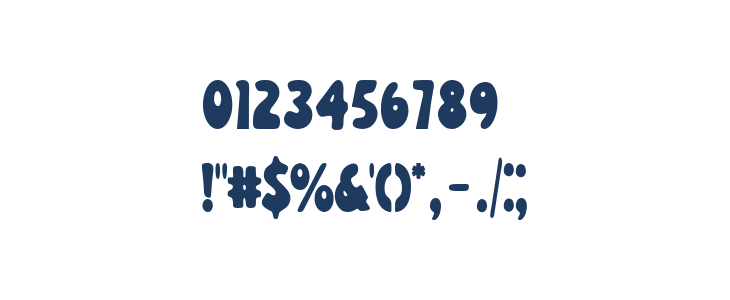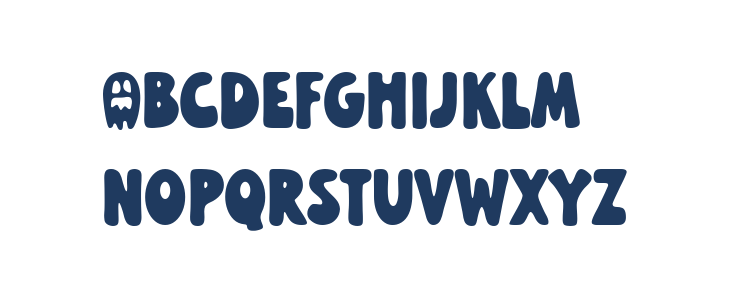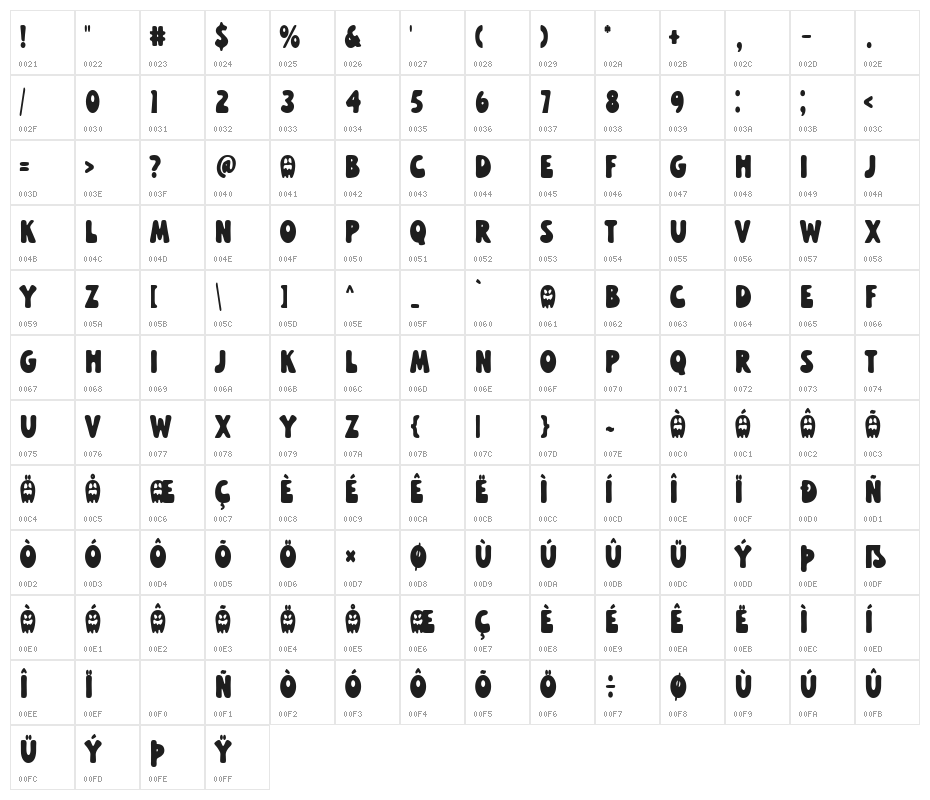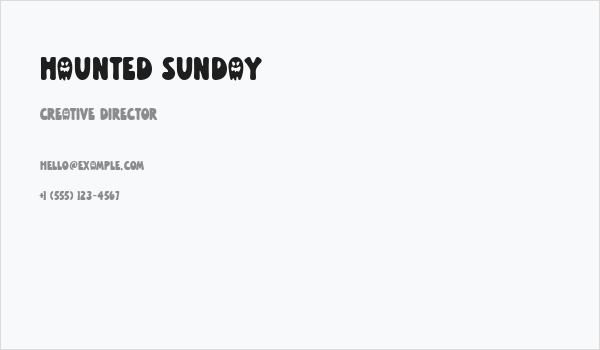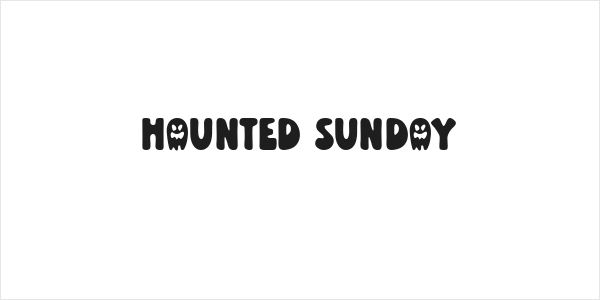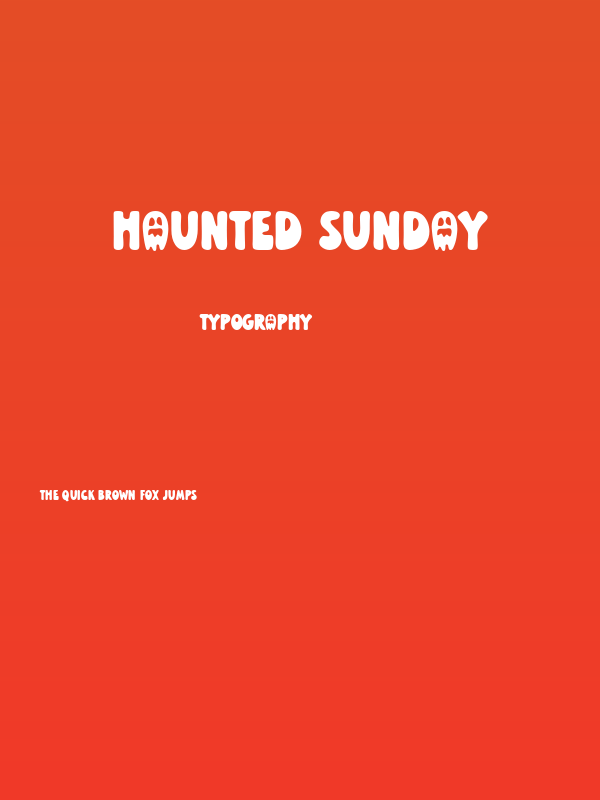
Haunted Sunday Font
A playful, bold display typeface with rounded, irregular edges and a whimsical, spooky theme. The characters are thick and bubbly, with some glyphs featuring ghostly or Halloween-inspired elements.
Overall StyleDecorative, Playful, Spooky
Use CaseHeadlines, Posters, Logos, Event Flyers
Proposed ProjectsHalloween posters, party invitations, children's books, themed event branding, playful packaging.